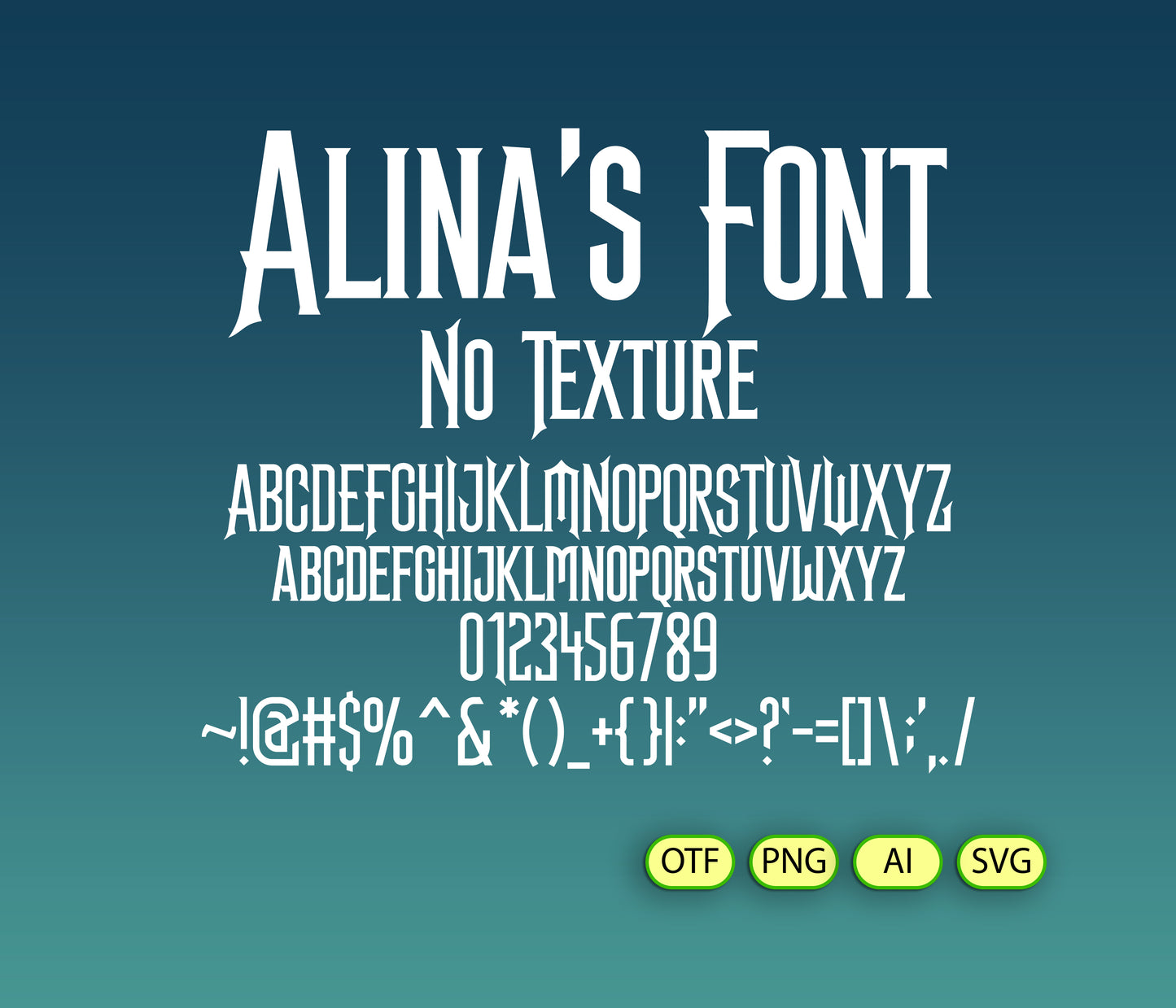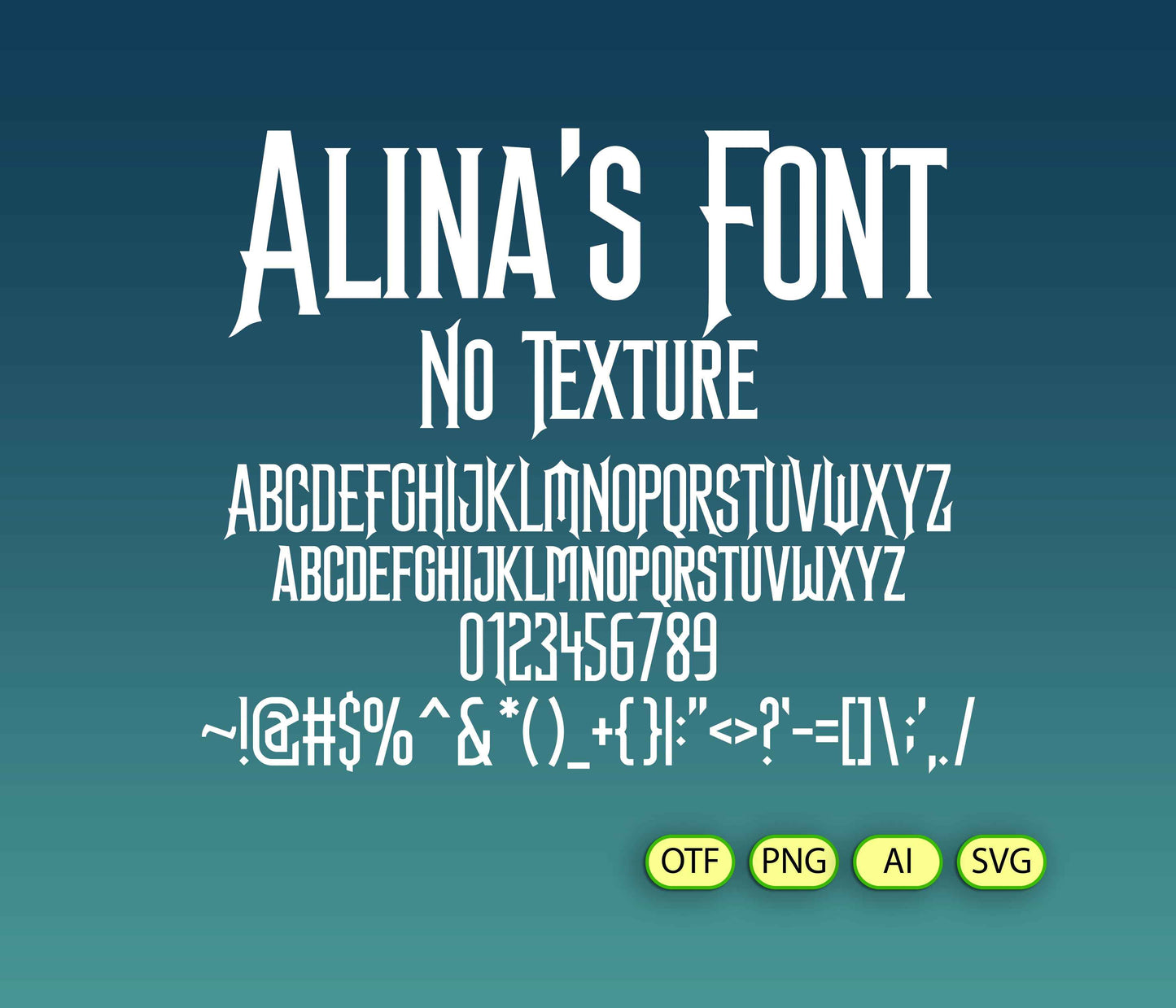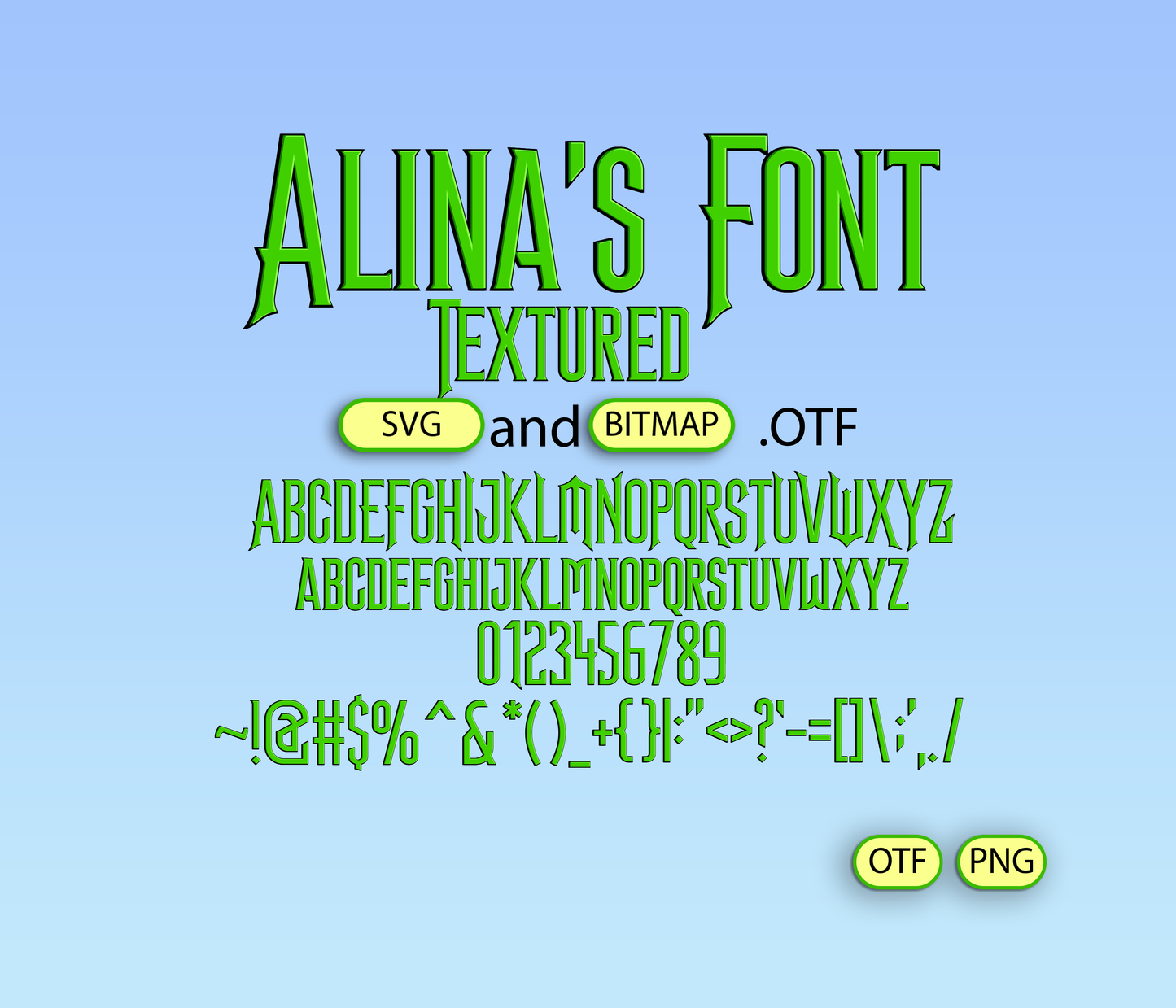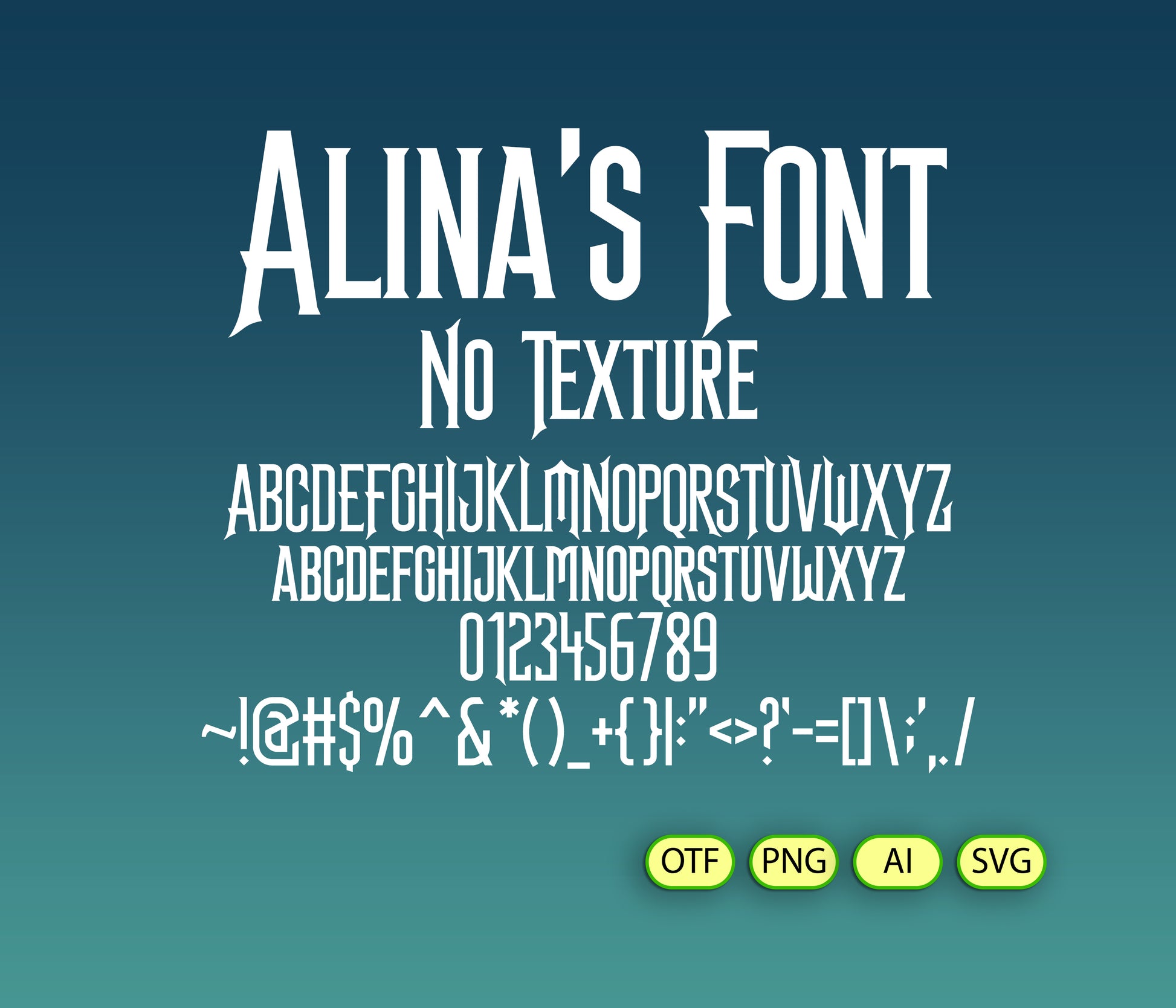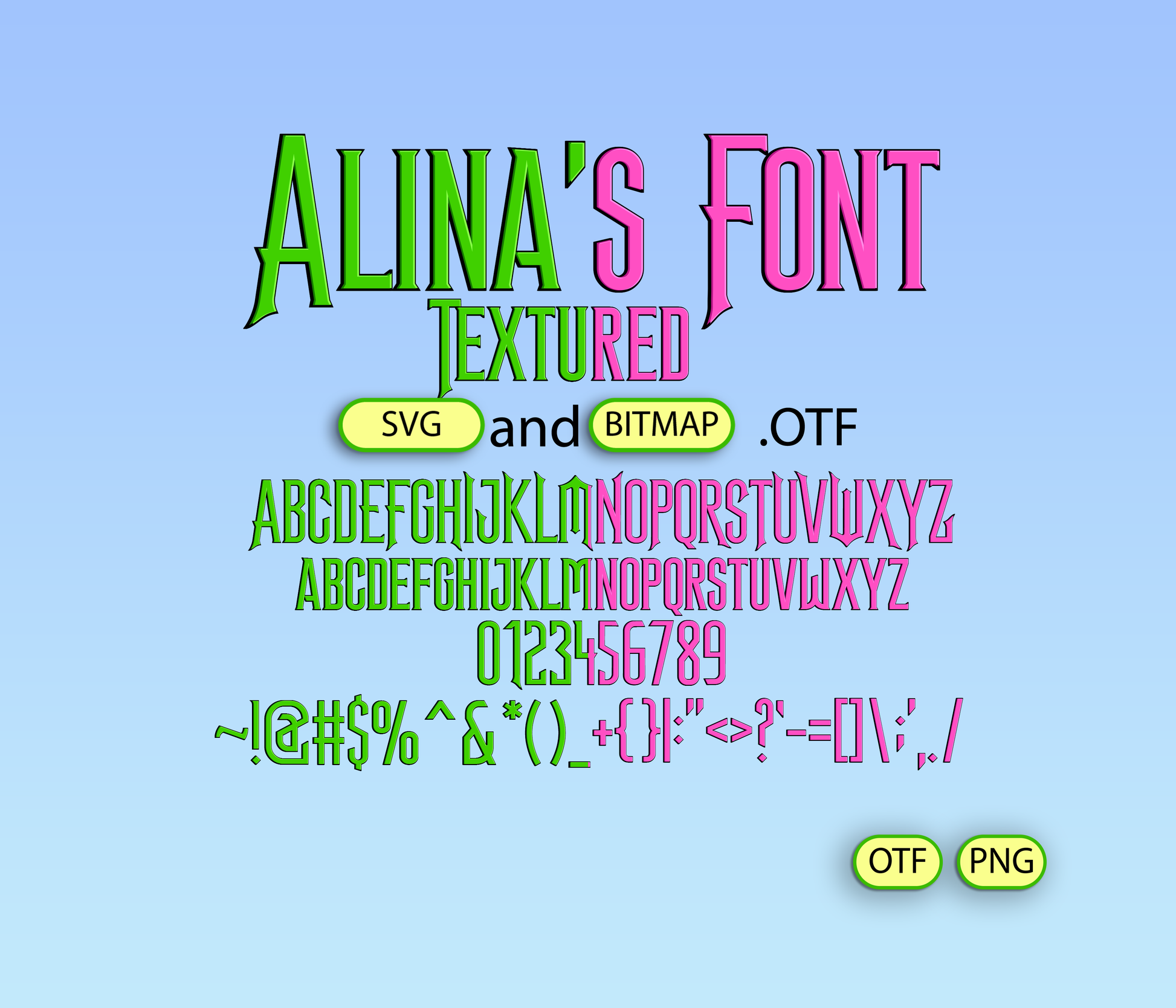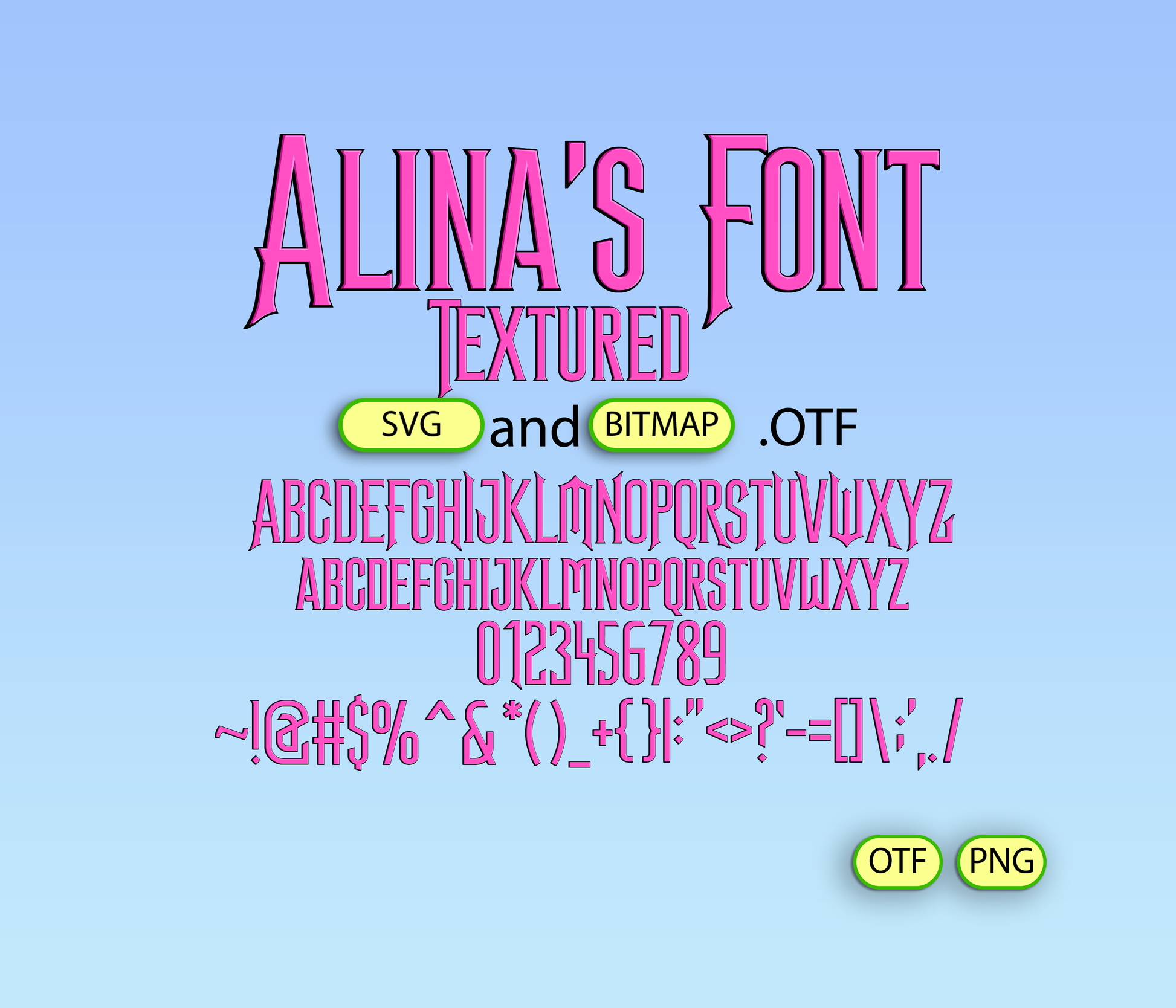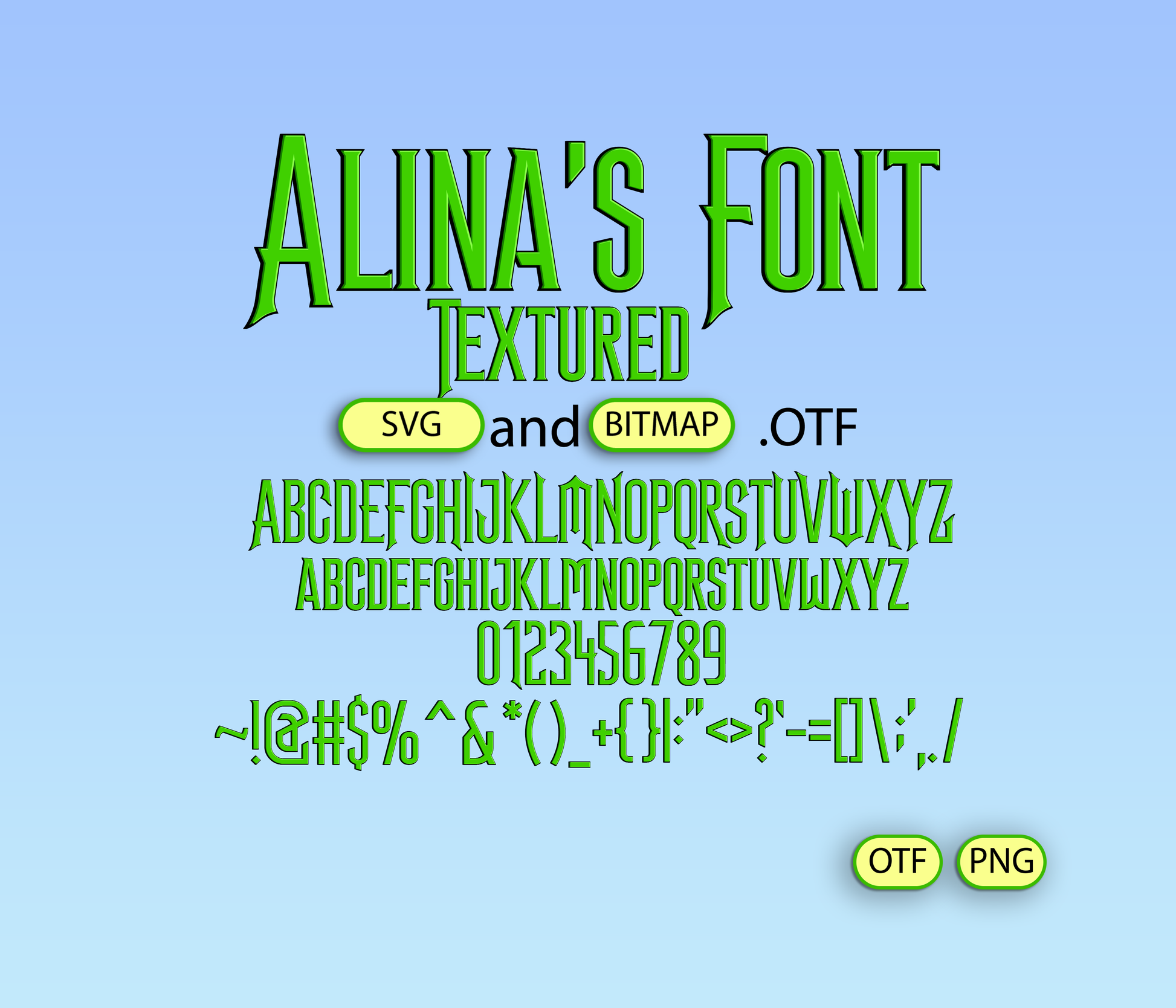
Emerald Spellcraft Theatrical Font Textured
Immerse yourself in the captivating realm of stage magic with our Emerald Spellcraft Theatrical font, embodying the essence of a treasured musical masterpiece. Perfect for drama devotees, occasion coordinators, stage artists, and creative professionals, this font delivers the intense, mystical character of a fabled verdant-hued protagonist to your creations. Develop function invitations, themed collectibles, or digital artwork with the commanding energy of this extraordinary production's mesmerizing narrative.
Our Emerald Spellcraft Theatrical font showcases refined, dramatic curves and enchanted characters mirroring the emotional richness of this stage phenomenon. Ideal for:
- Gathering Announcements: Eye-catching invites, displays, banners for theater shows, viewing gatherings, themed festivities.
- Collectible Development: Apparel, wall art, mementos capturing the essence of jade wizardry and camaraderie.
- Web Presence: Transform websites, journals, social platforms with theatrical headers and visuals.
- Performance Materials: Genuine style for show booklets, programs, admirer artwork.
- Individual Endeavors: Stage enchantment for memory books, handmade items, interior embellishments inspired by the bewitching musical.
Our Emerald Spellcraft Theatrical font includes textured and smooth variations, ensuring compatibility with all programs, including Canva. This attribute facilitates effortless integration into creations for designers of every proficiency level.
Our font honors the celebrated musical, elevating your designs with its enchanting and dramatic character. Whether producing promotional elements, fashioning merchandise, or introducing a theatrical component to personal projects, this font conveys the powerful spirit of this magical tale. Eager to infuse stage enchantment into your creations? This font is your gateway to captivating, striking design.